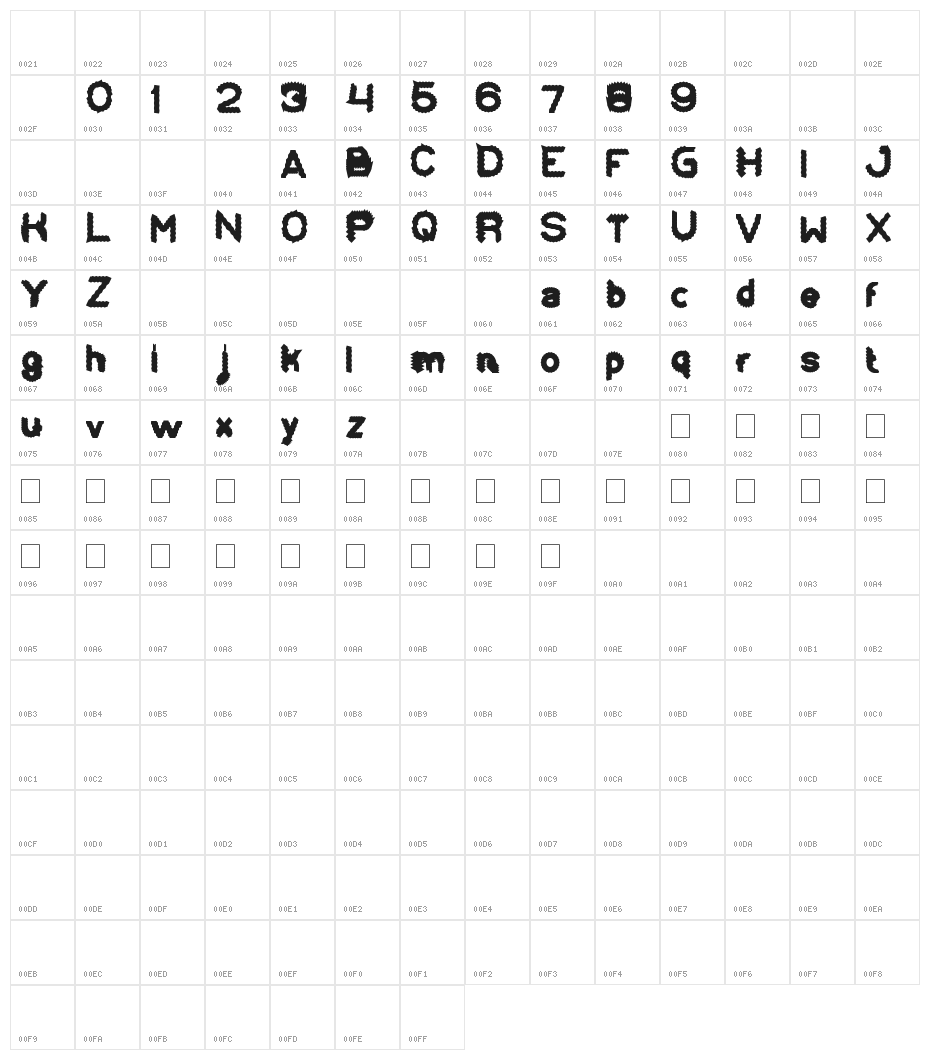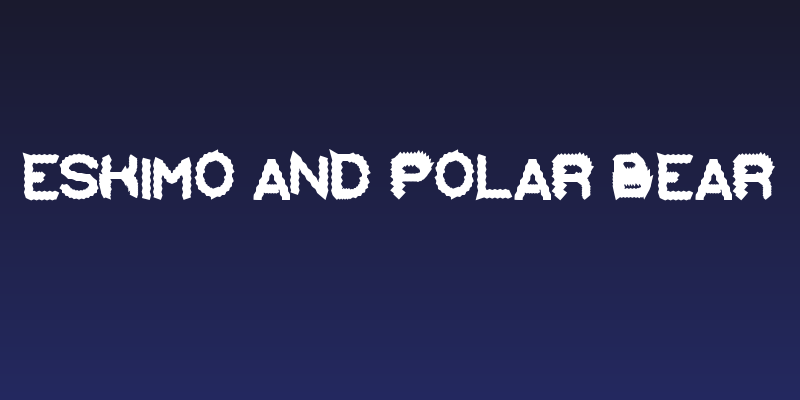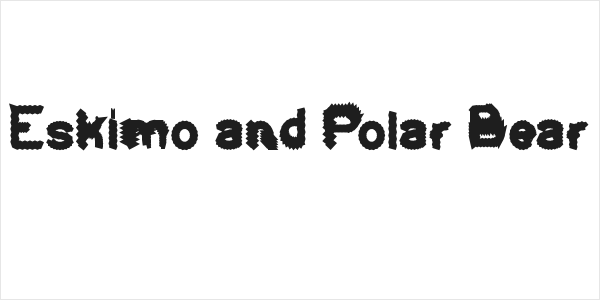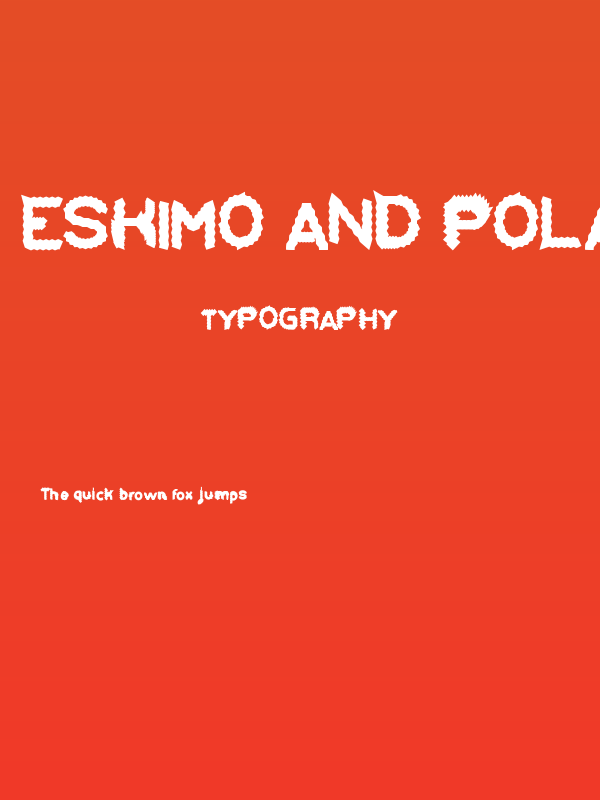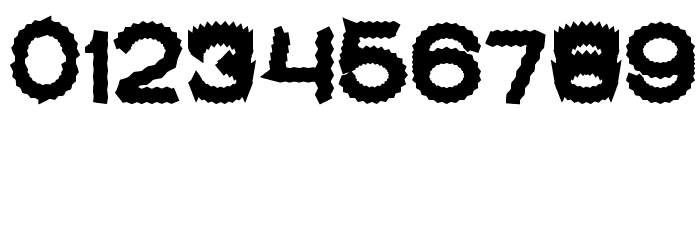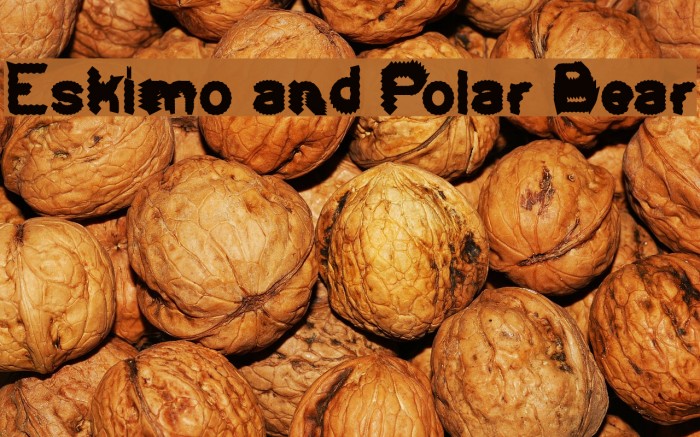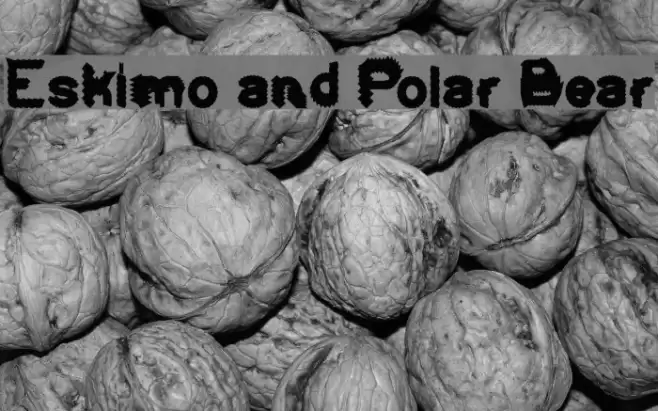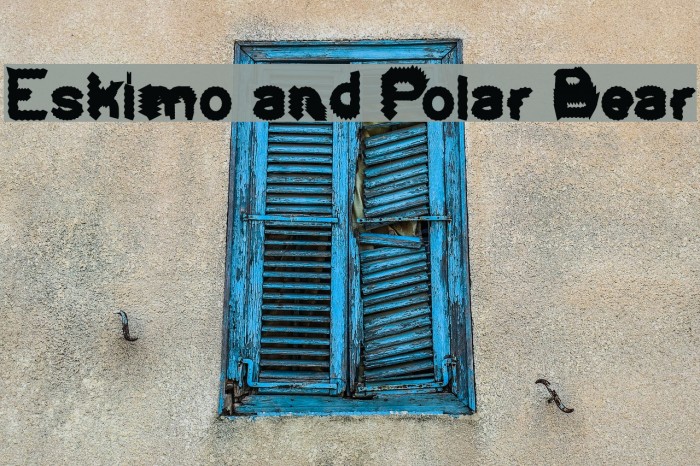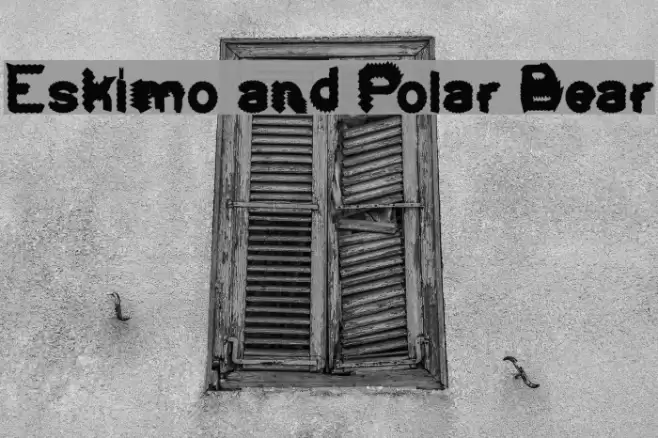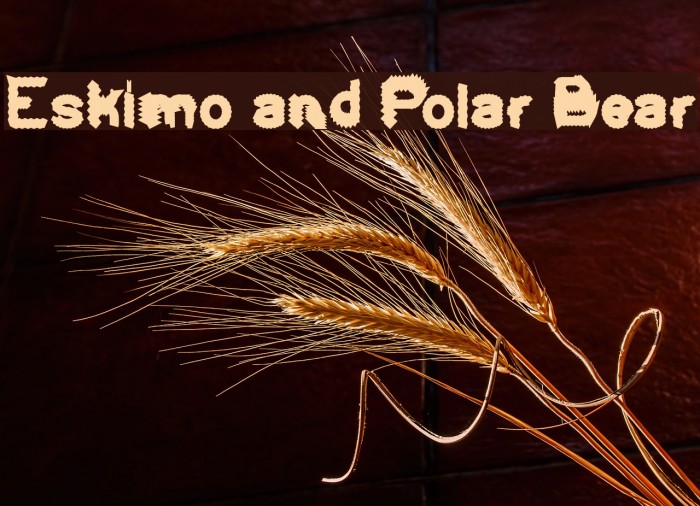
Eskimo and Polar Bear Font
Eskimo and Polar Bear Description
This font features a playful and jagged design, reminiscent of icy landscapes and rugged textures. Each character is crafted with a unique, serrated edge that gives the impression of being carved from ice or snow. The bold and striking appearance makes it stand out, while the consistent jagged pattern across all characters maintains a cohesive look. The uppercase and lowercase letters, along with numbers and special characters, all share this distinctive style, making it ideal for projects that require a fun and adventurous aesthetic.
| Proposed Projects | Ideal for winter-themed events, children's book covers, adventure branding, or any project needing a playful and rugged look. |